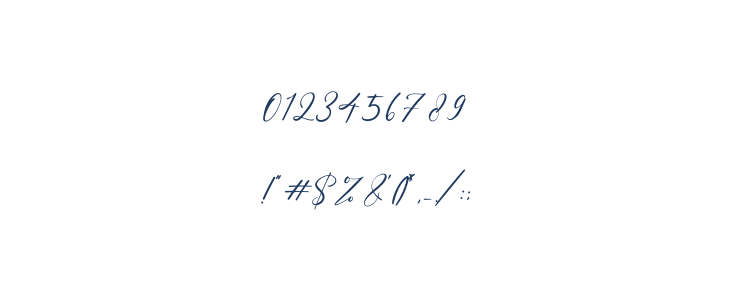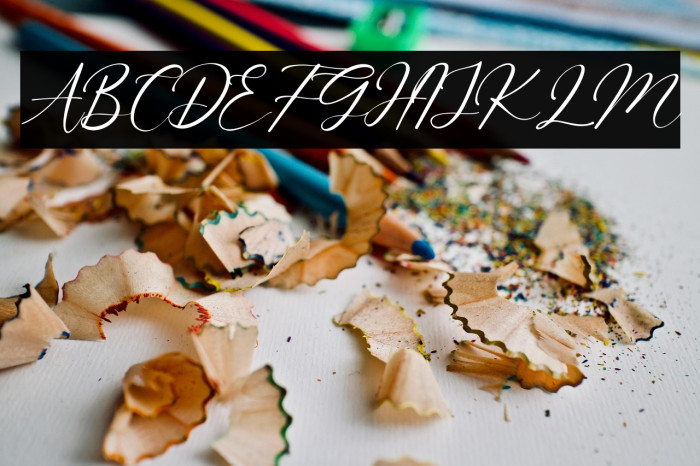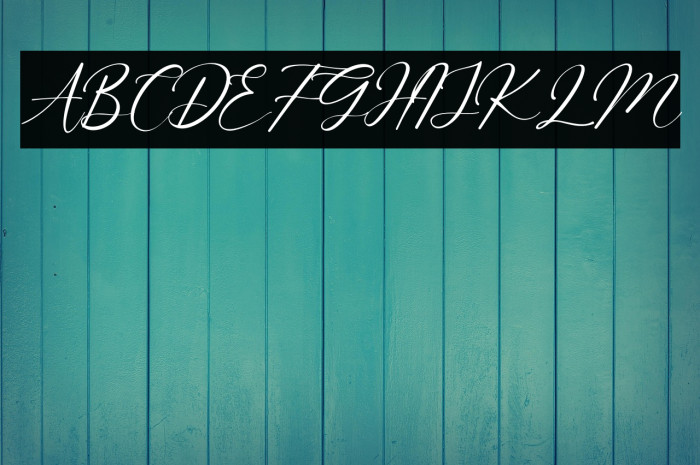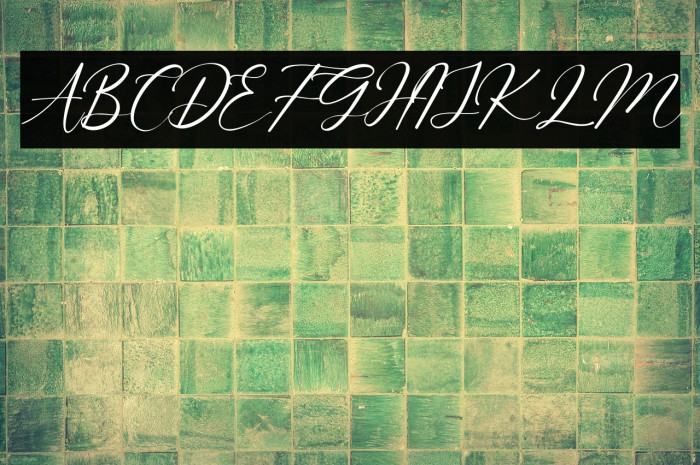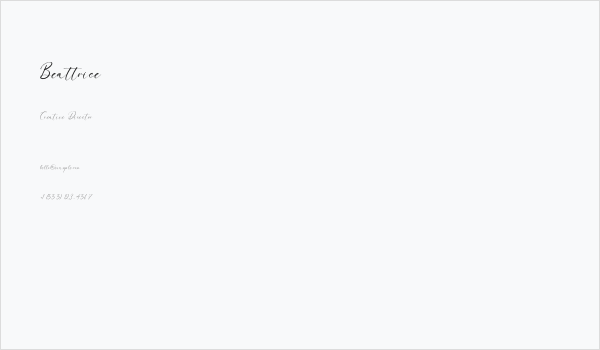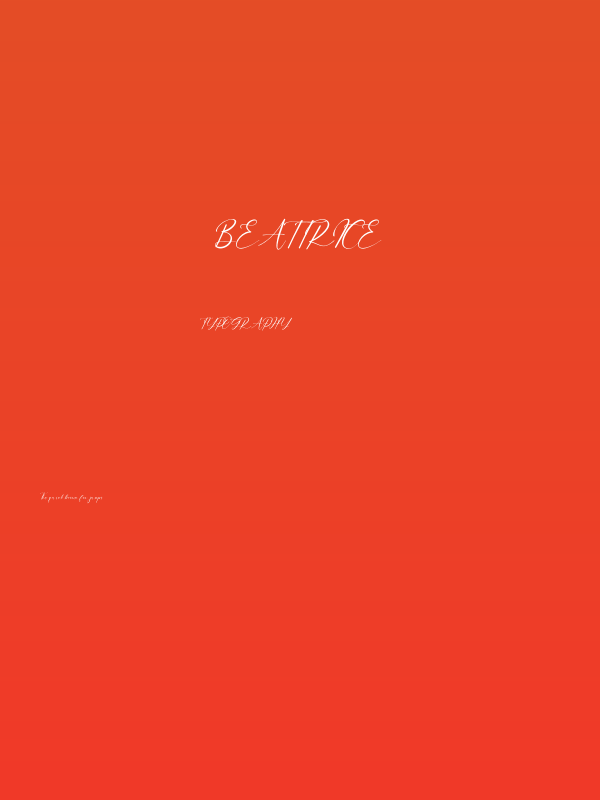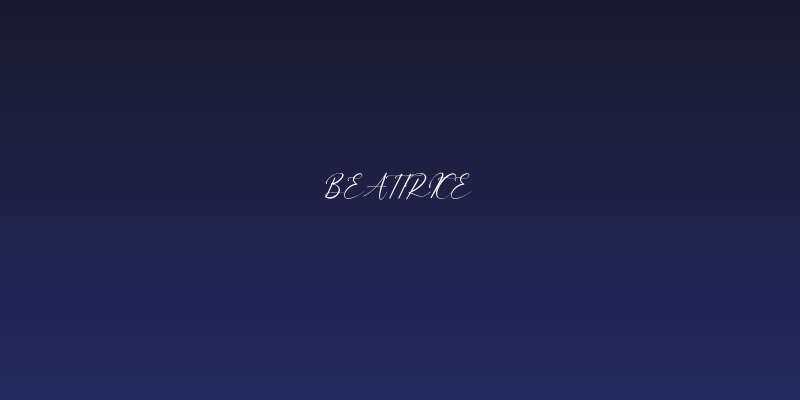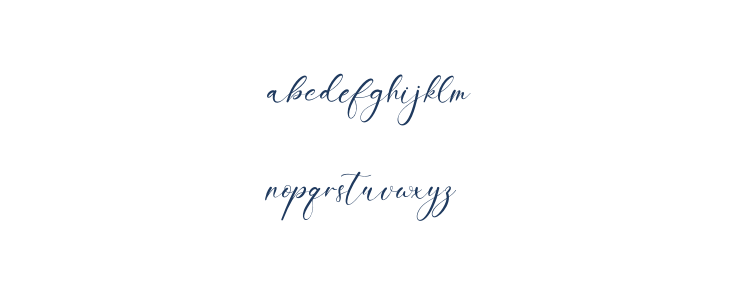
Beattrice Font
Beattrice Description
This elegant script font features a flowing, cursive style with graceful, sweeping lines and delicate curves. The uppercase letters are characterized by their tall, slender forms and intricate loops, while the lowercase letters maintain a consistent fluidity and charm. The numerals and special characters are designed with the same attention to detail, ensuring a cohesive look across all elements. The font's overall aesthetic is sophisticated and refined, making it ideal for projects that require a touch of elegance and class.
| Proposed Projects | Ideal for wedding invitations, elegant branding, personal stationery, and high-end product packaging. |